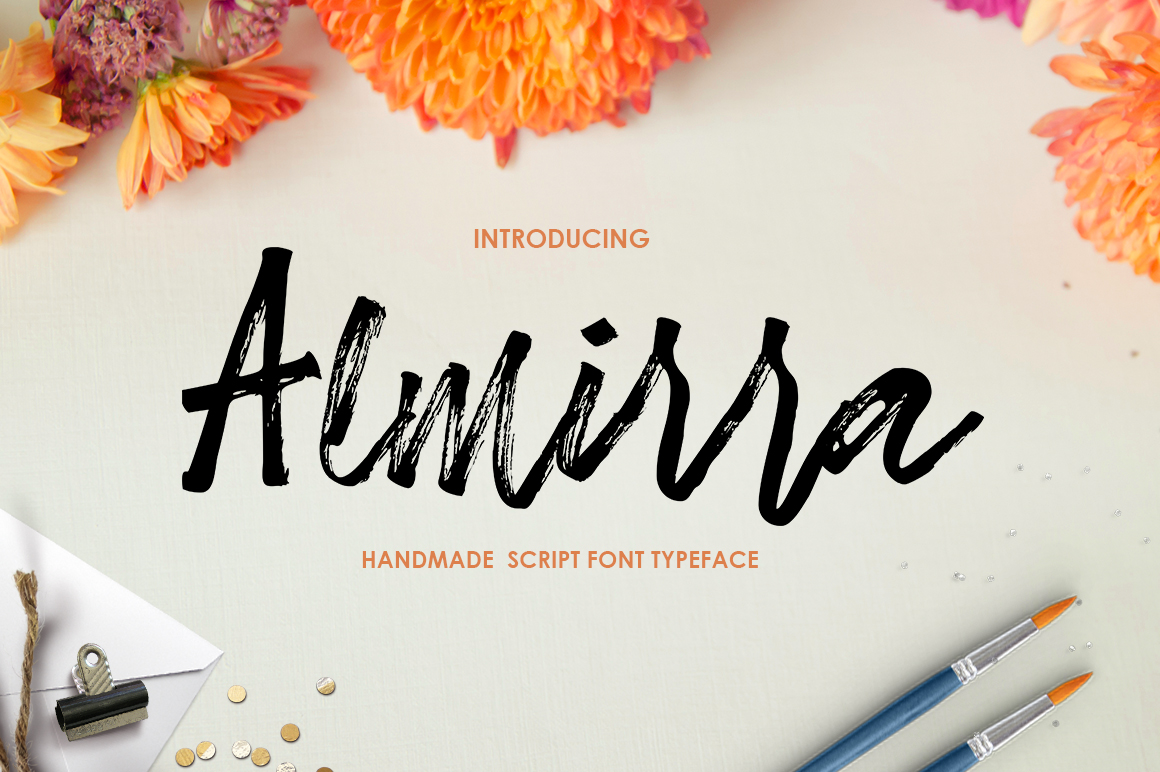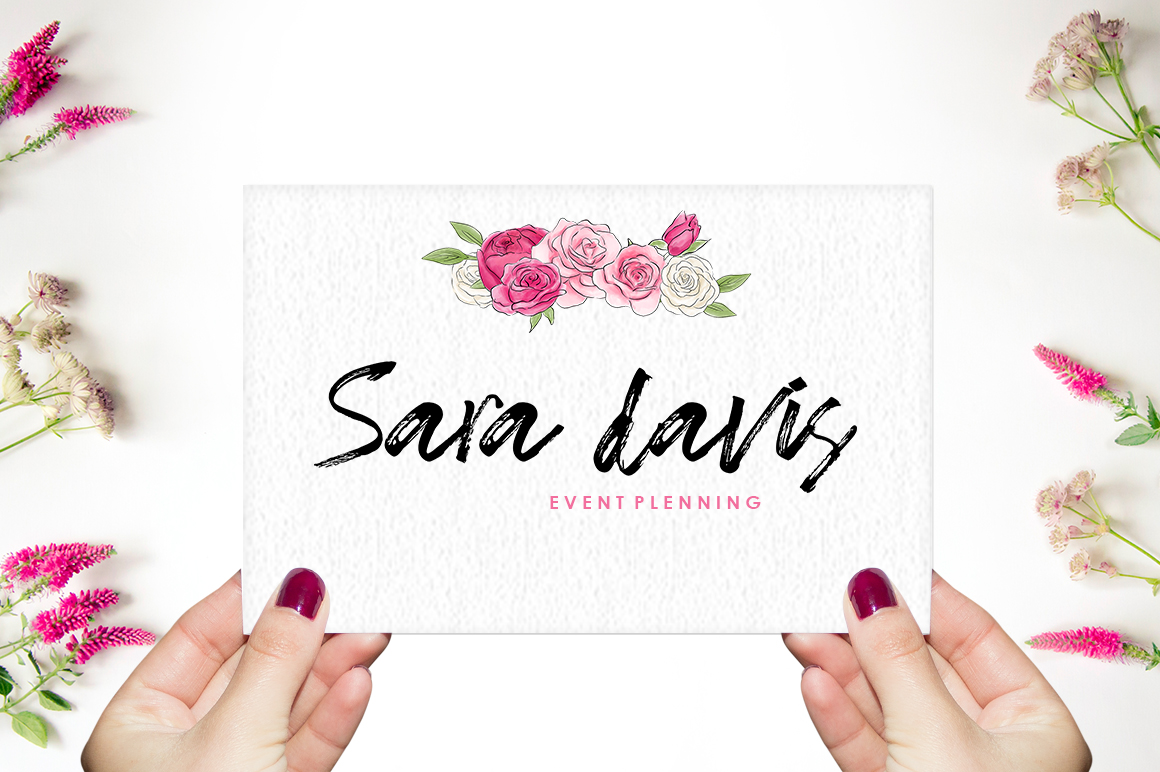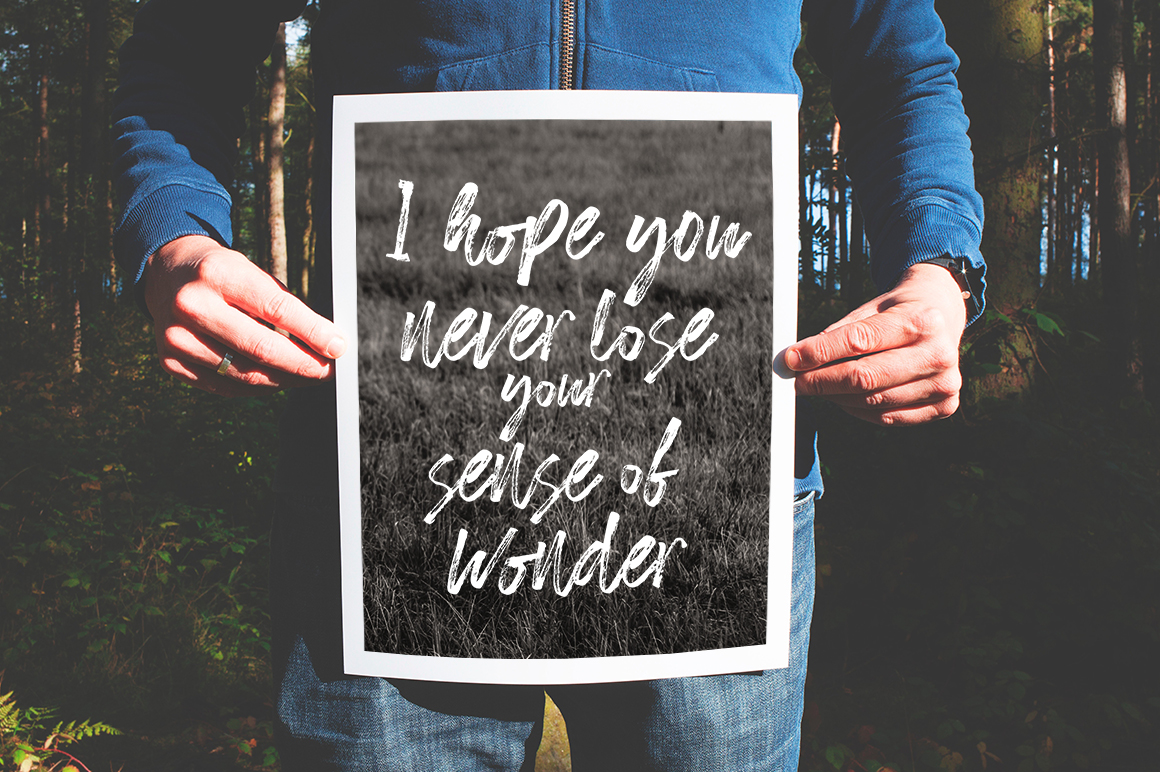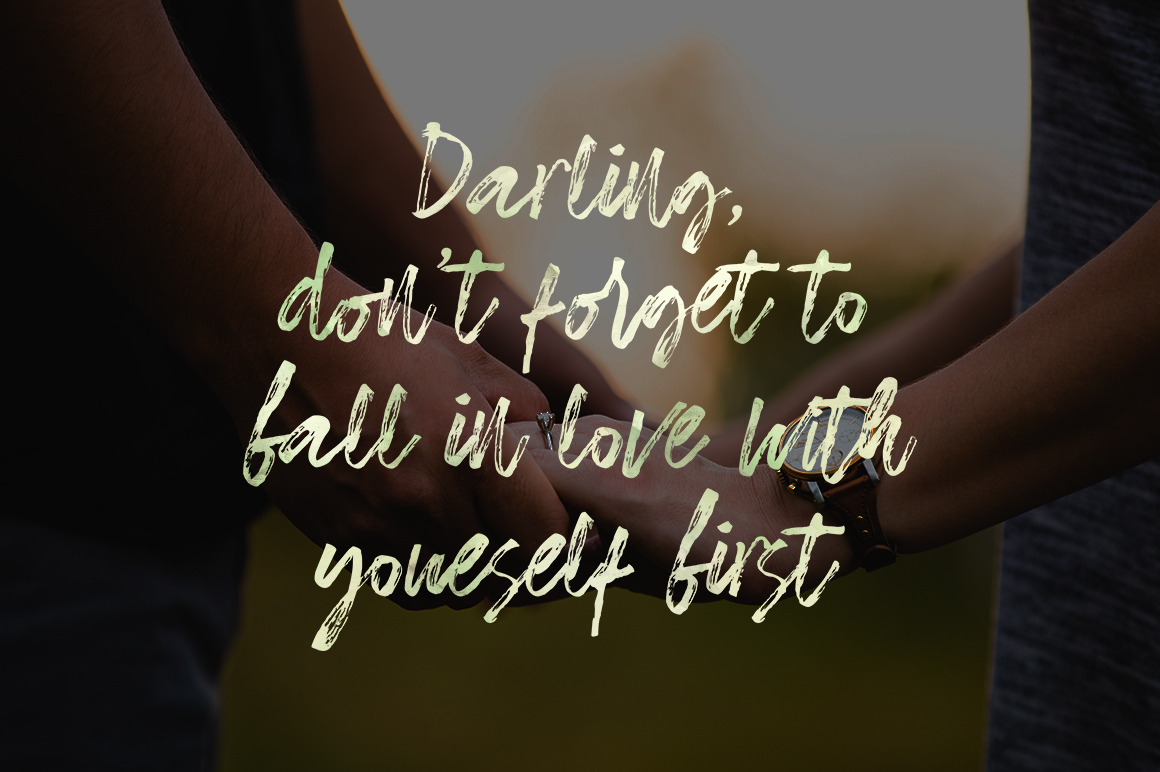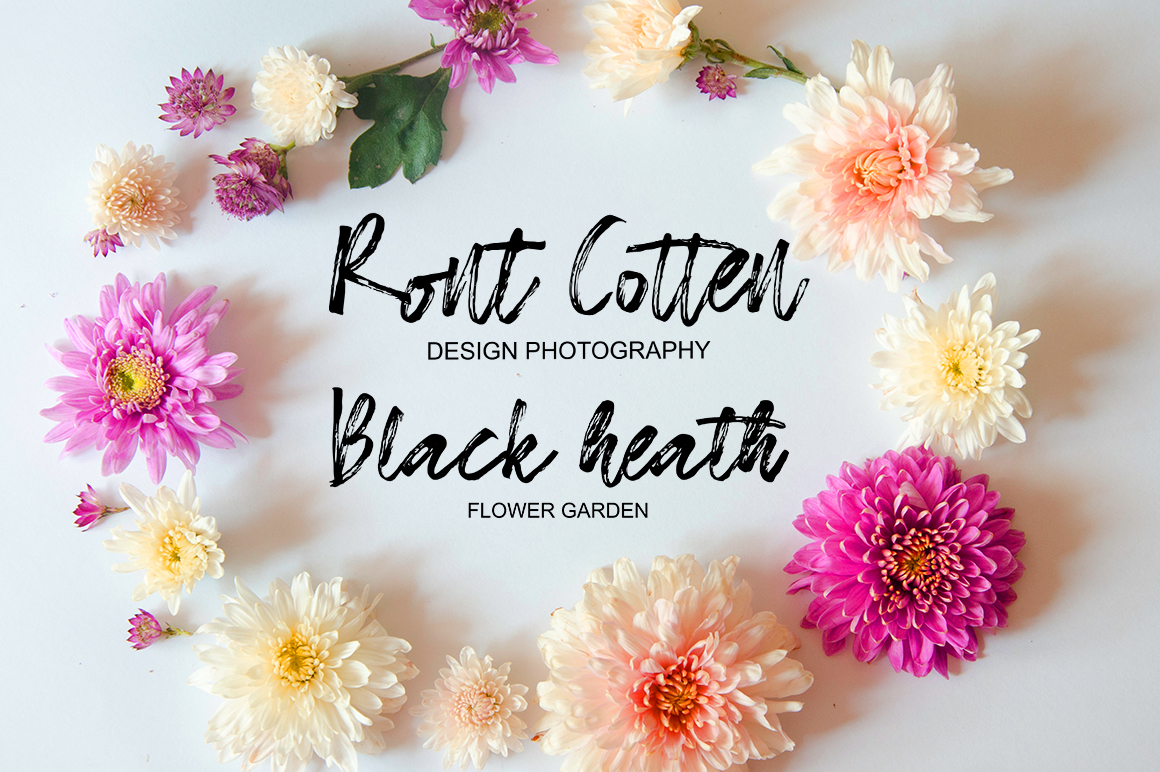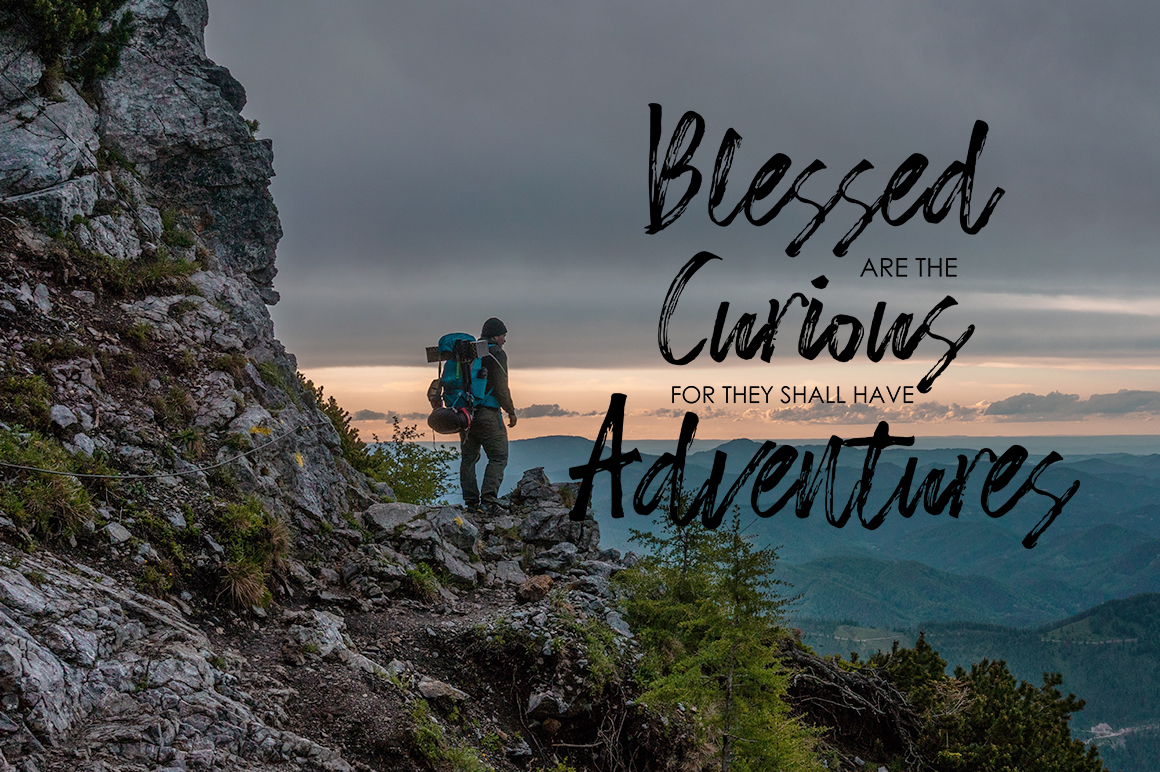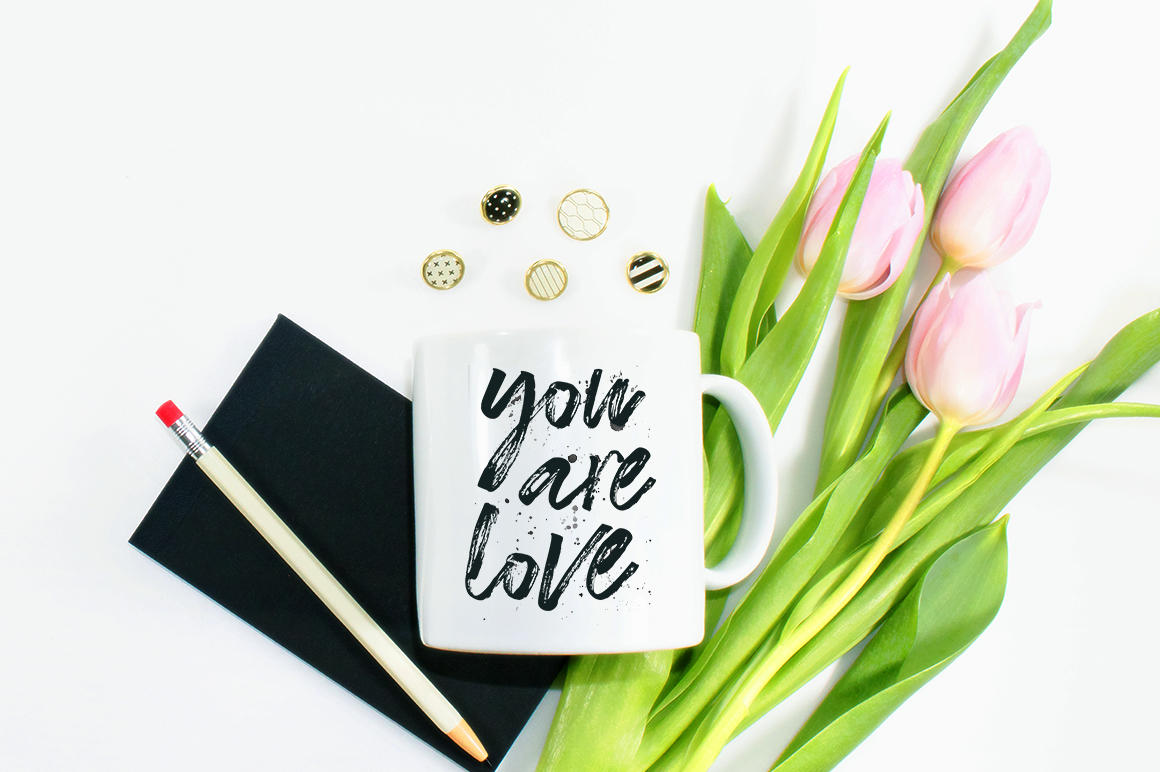
Almirra Font
About Almirra Font
Almirra Script is a handwritten script font, based on the expression of the signature style that flows freely, friendly and organically. This font is hand painted with love, and readily useable in a wide range of ways.